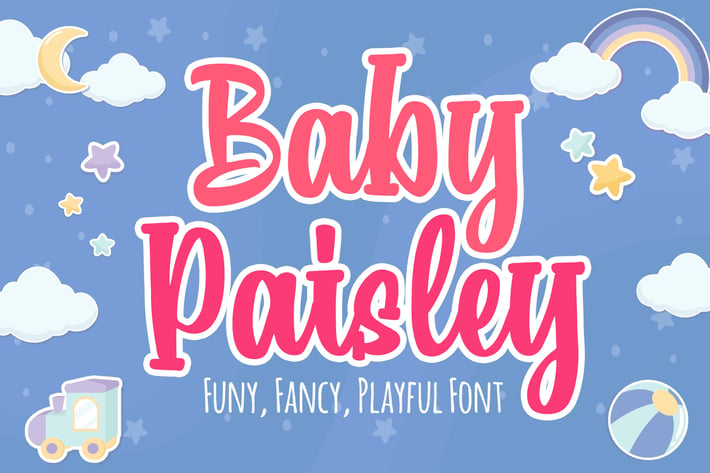
Baby Paisley a Playful Font
Introducing of our new product the name is Baby Paisley a Playful Font inspired by kids style this font is a fun theme very good for display, tshirt design, craft, quote sign, logotype and etc